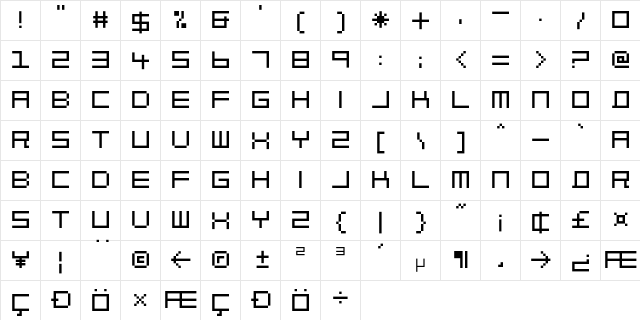
BlockOut Regular
Design Context for BlockOut Typeface
BlockOut is a composed and adaptable typeface that performs quietly and consistently across a wide range of design contexts.